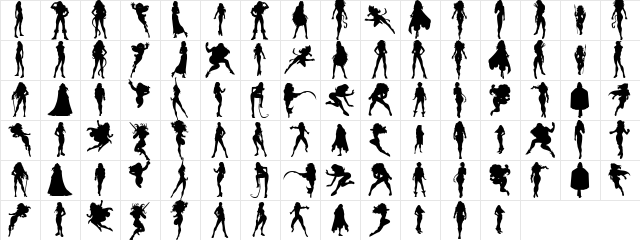
Action Women Regular
Design Context for Action Women Typeface
Action Women is a composed and adaptable typeface that performs quietly and consistently across a wide range of design contexts.